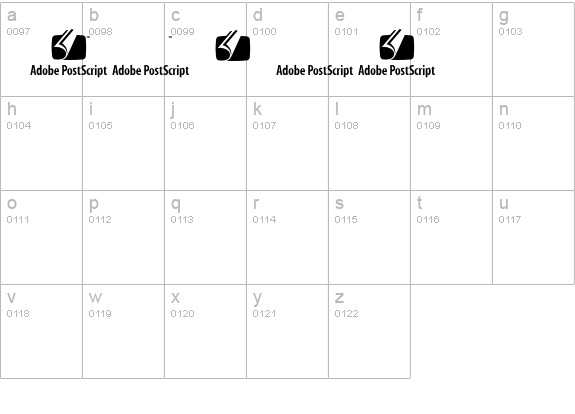
Adobe Corporate ID PostScript Font Details
Introducing the sophisticated and versatile Adobe Corporate ID PostScript font, a timeless typeface that exudes professionalism and elegance. This font is perfect for creating sleek and polished corporate materials, from business cards to marketing collateral. With its clean lines and classic design, Adobe Corporate ID PostScript font adds a touch of sophistication to any project. The best part? This premium font is available for free download at FontsMarket.com, making it easily accessible to all designers and creatives. Elevate your branding and design projects with the exquisite Adobe Corporate ID PostScript font today.